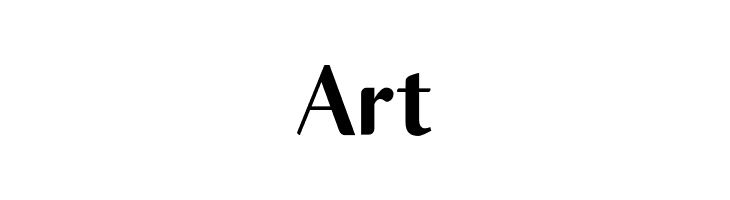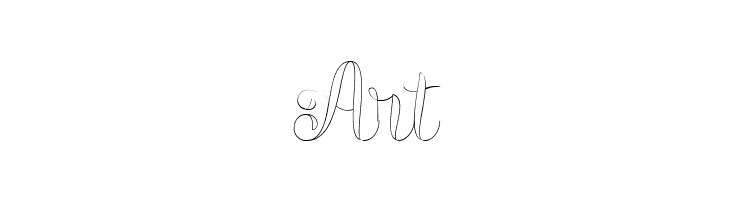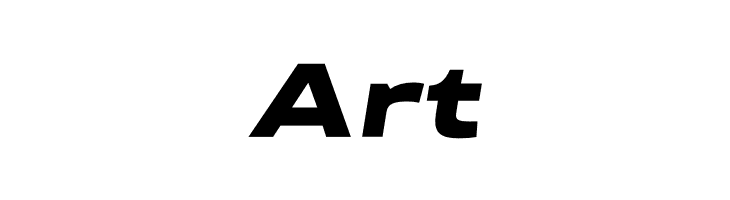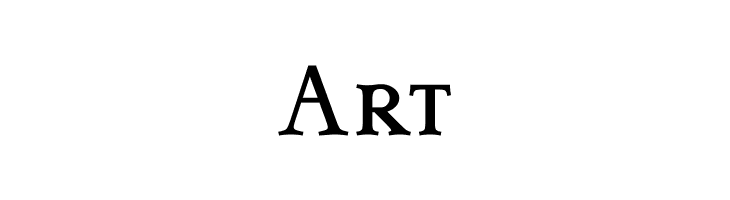
A modern sans-serif font with geometric shapes and uniform strokes.
A bold, modern font with clean lines and a touch of elegance.
A delicate and elegant script font with thin, flowing lines and subtle flourishes.
A bold serif font with high contrast and elegant curves.
An elegant and refined font with modern and classic elements, featuring subtle serifs and distinctive flourishes.
A bold, italicized font with a dynamic and modern style.
A flowing, elegant handwritten font with a natural and sophisticated style.
A classic serif font with elegant curves and balanced proportions.
An elegant, swash-style font with flowing, graceful strokes.
A monospaced typewriter-style font with a classic, vintage appeal.